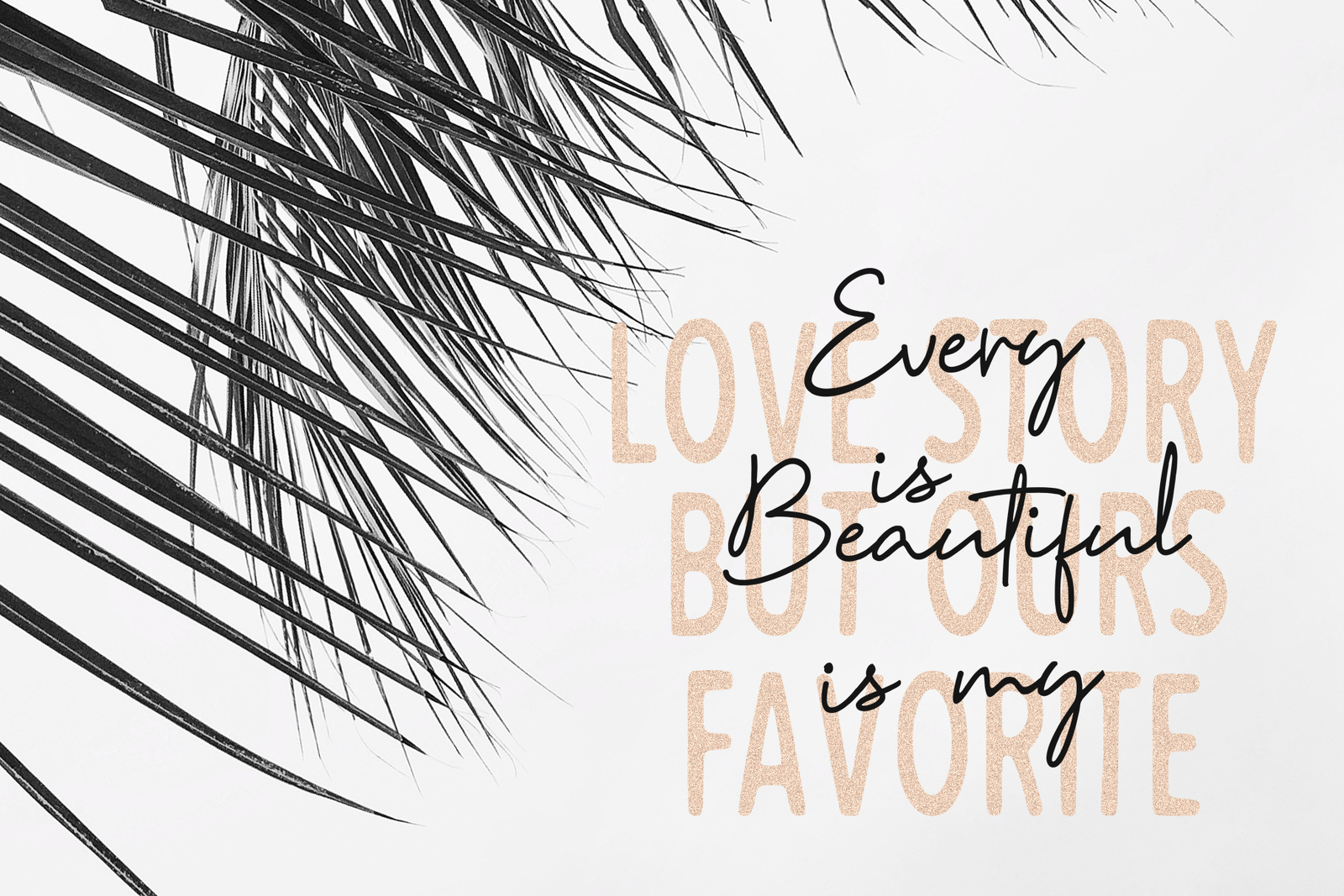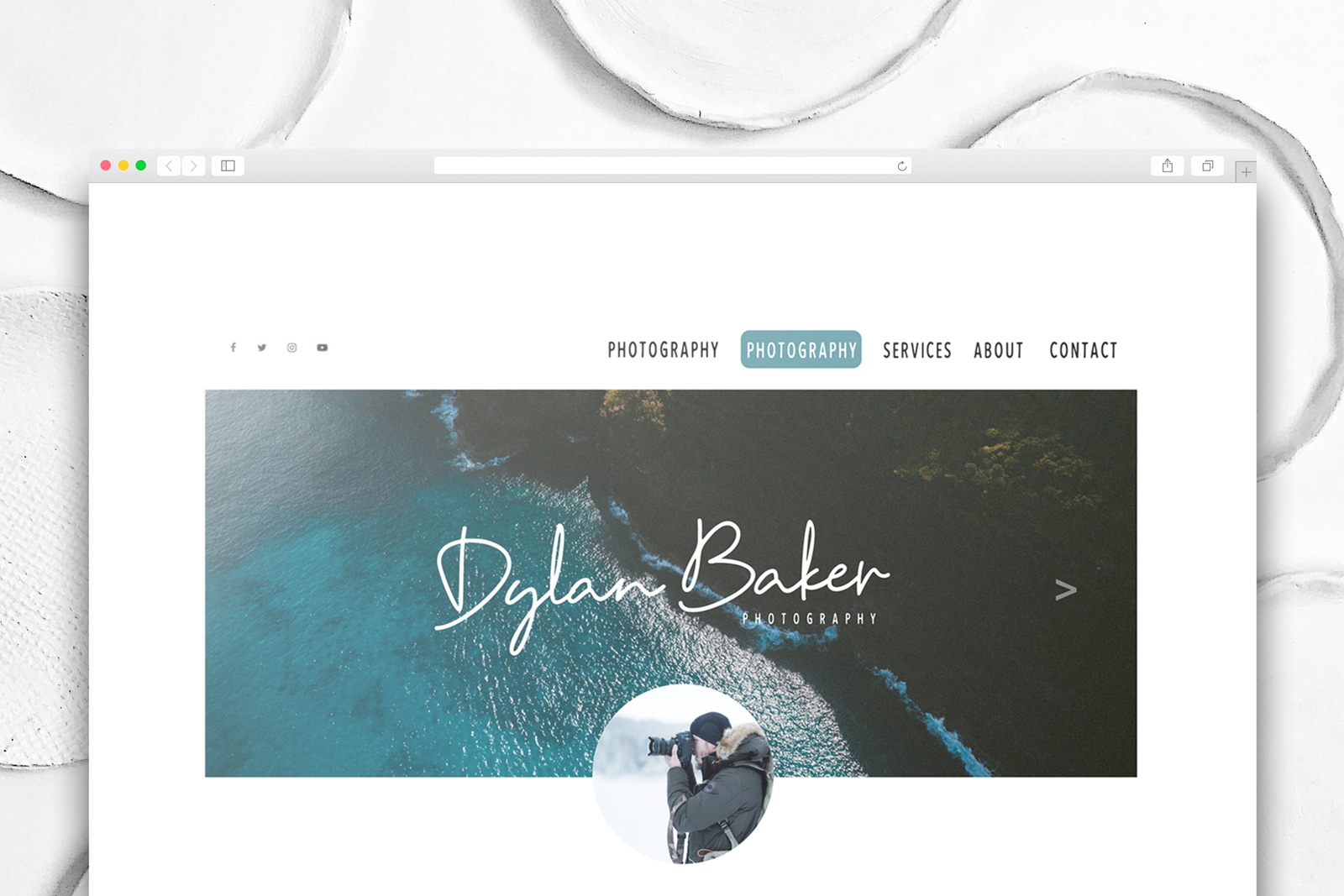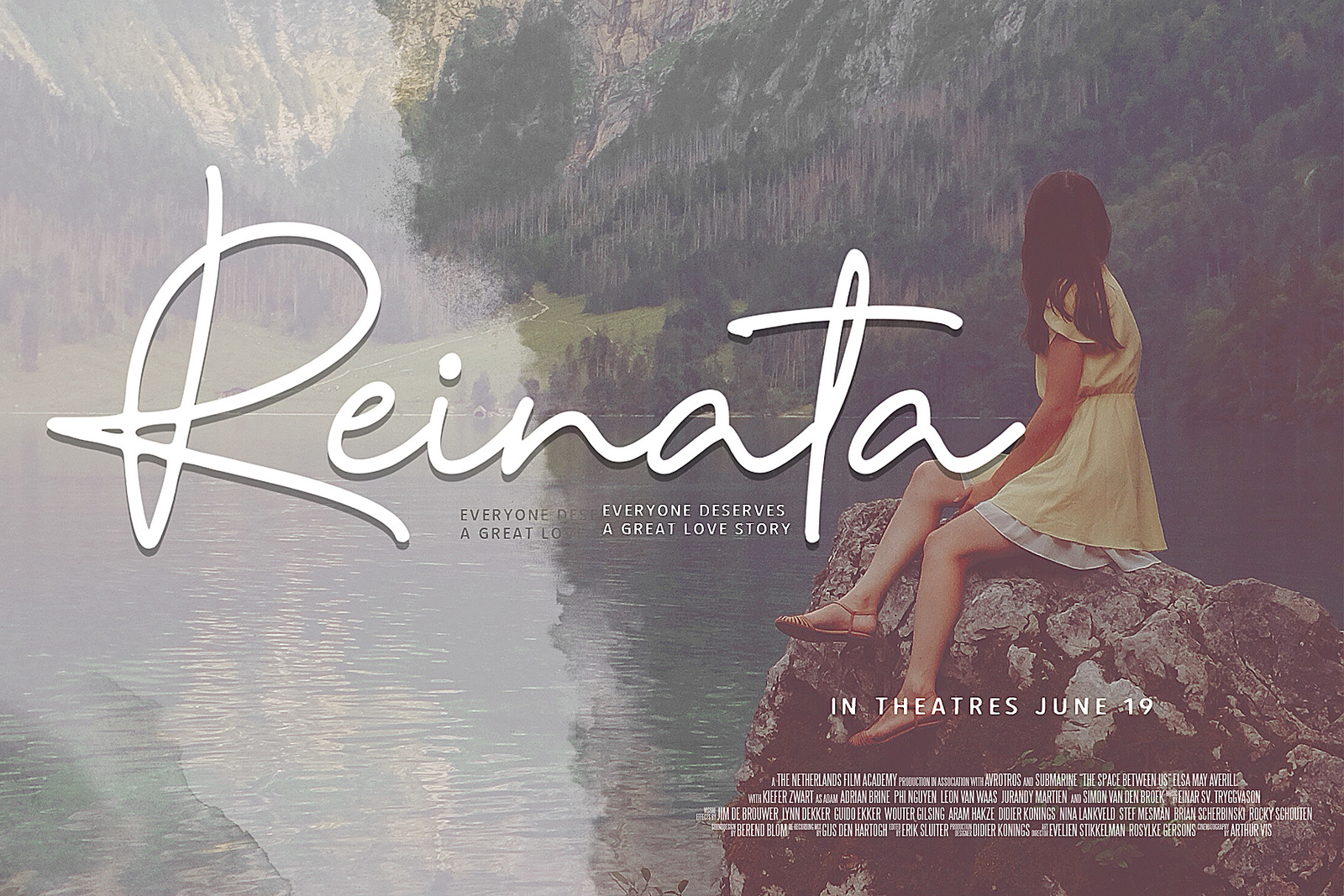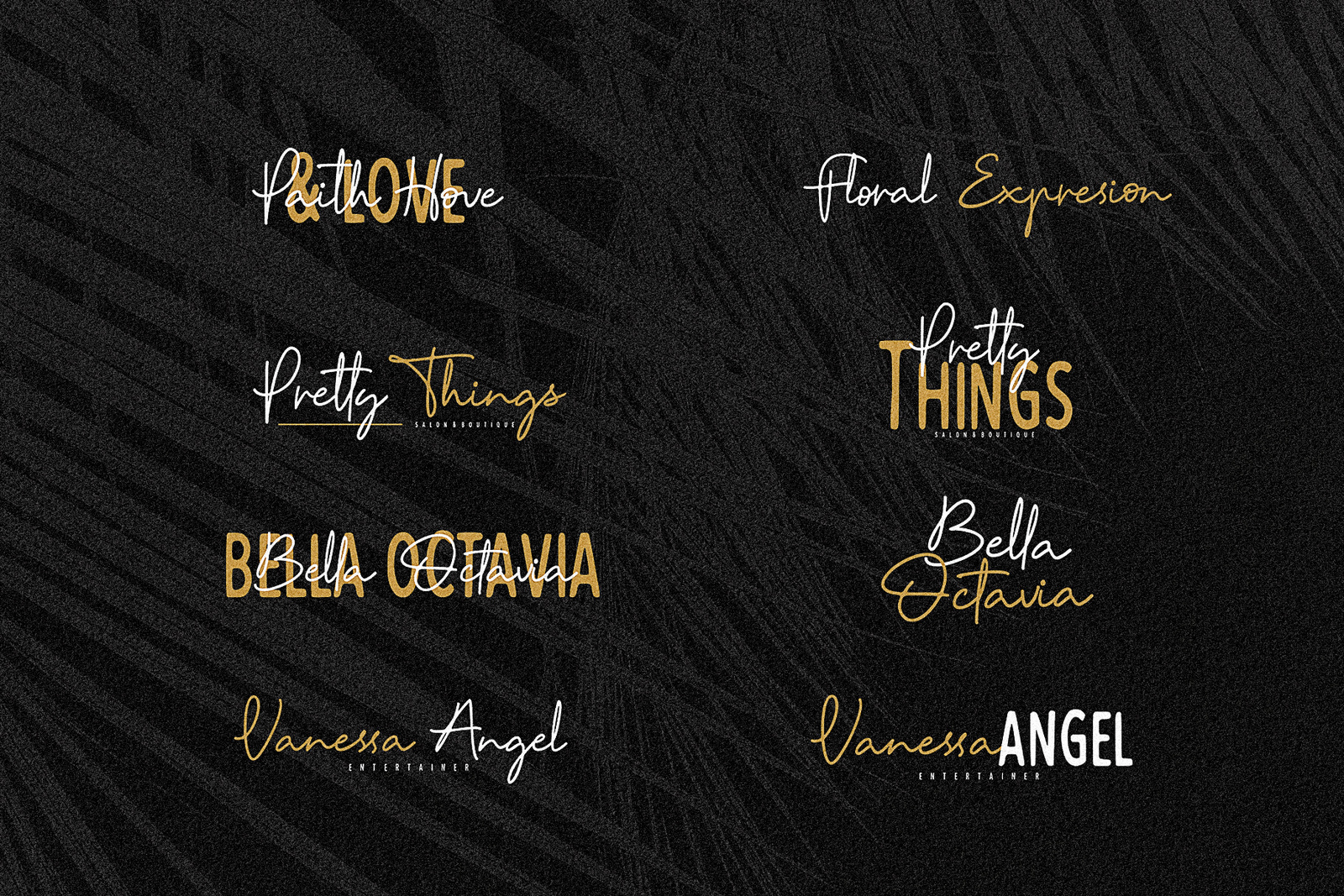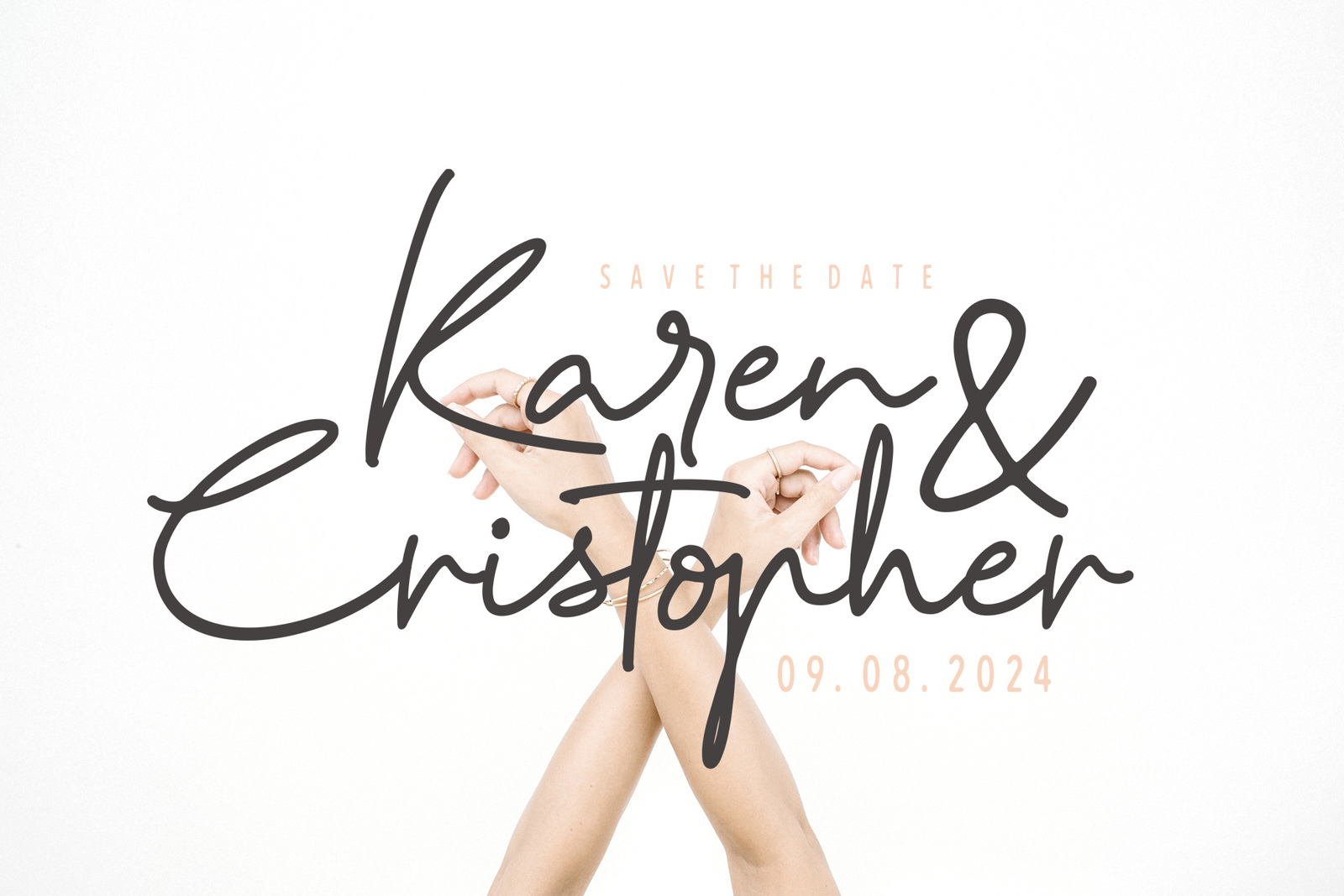
Reinata Font Duo
Reinata is a beautiful handwritting typeface It gives your design a handmade feeling. Can be used for various purposes such as headings, logos, invitations, t-shirt designs, greeting cards, posters, labels, book covers, brochures and much more! international support: ÀÁÂÃÄÅĄÇĆÈÉÊËĘ